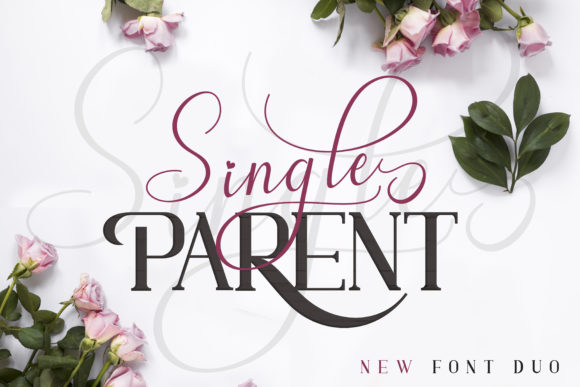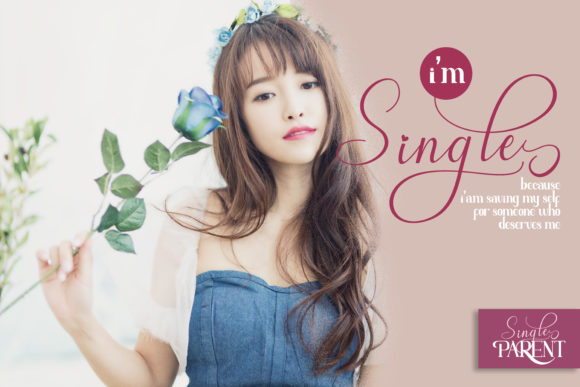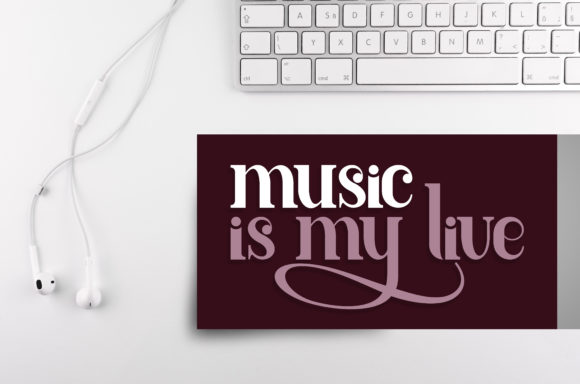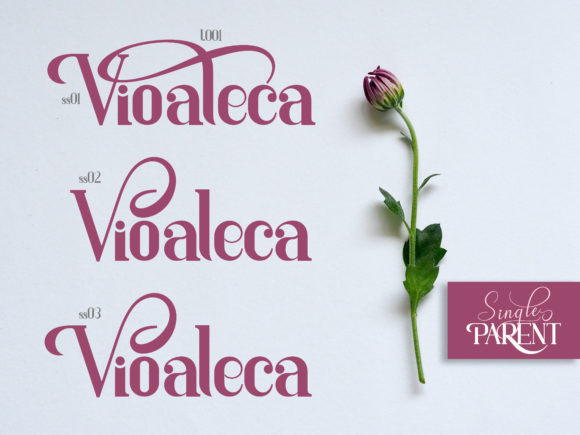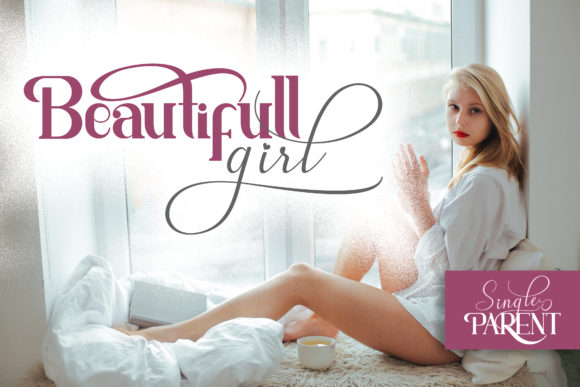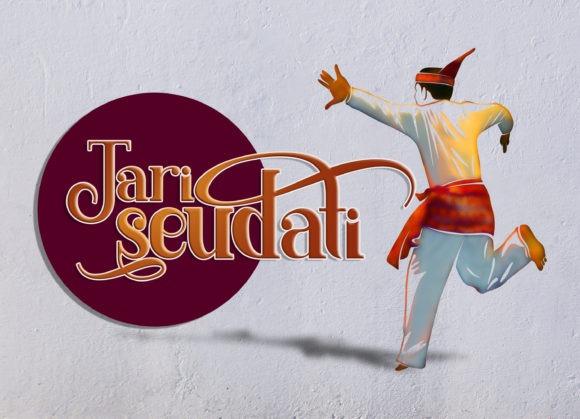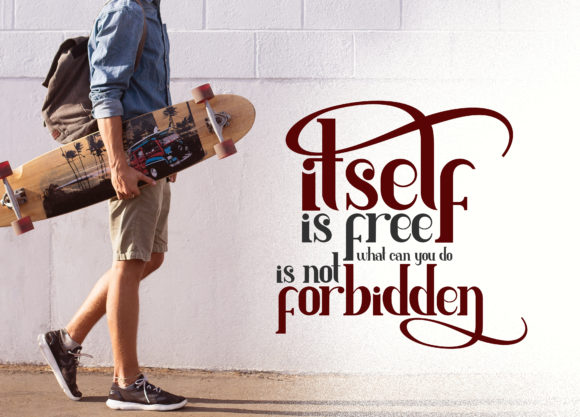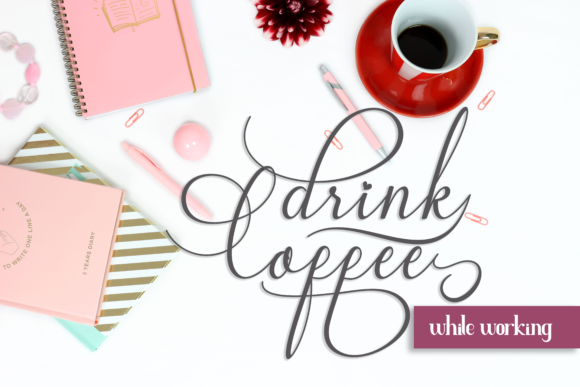
Single Parent Duo Font
About Single Parent Duo Font
The Single Parent is a jawdropping script Duo. It’s absolutely gorgeous and comes with several glyph options per character, giving you the ability to customize your typography across a wide range of projects.